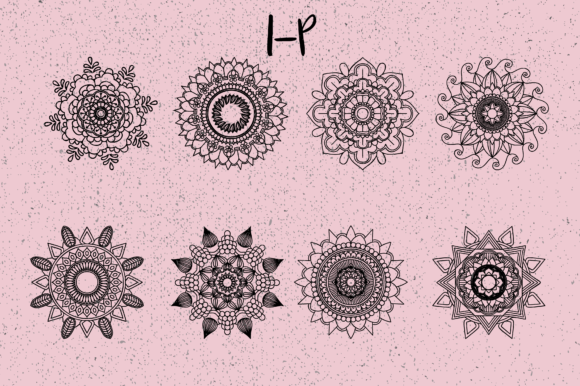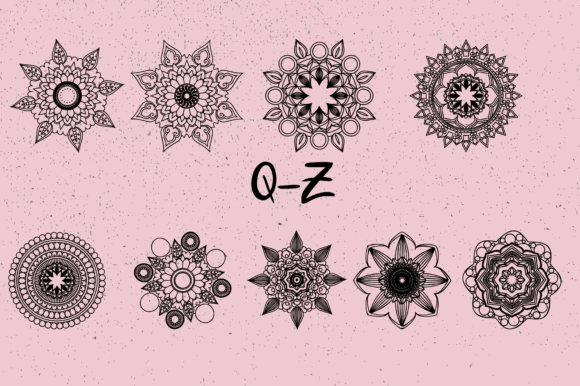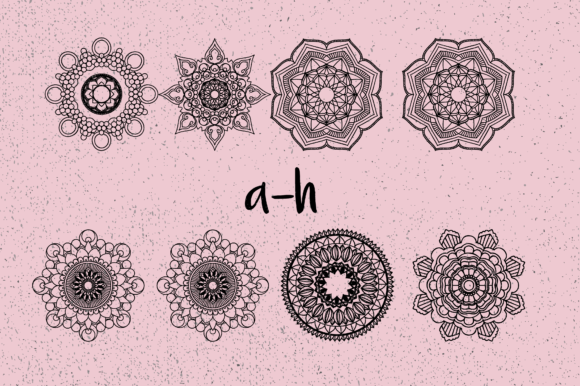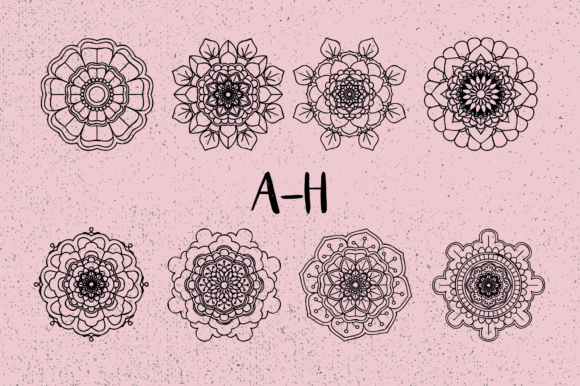
About Mandala Font
Mandala Creator is a remarkable dingbats typeface that allows you to effortlessly generate up to 62 unique floral mandalas for your creative projects. With this font, you can save a significant amount of time and technical knowledge typically required to create intricate mandala designs.
Mandalas are beautiful and symmetrical patterns that hold deep spiritual and cultural significance. They have been used for centuries as tools for meditation, relaxation, and self-expression. With Mandala Creator, you can easily incorporate these captivating designs into your own creations.
Using the font is simple and intuitive. Just type the corresponding letters or numbers to generate different floral mandalas. Each design is carefully crafted to showcase intricate patterns and floral elements, allowing you to add a touch of elegance and mystique to your artwork.
The versatility of Mandala Creator makes it suitable for various creative projects. Whether you’re designing invitations, greeting cards, posters, or digital illustrations, these unique floral mandalas will instantly enhance your compositions. You can also use them as decorative elements in branding, packaging, or website designs to create a visually captivating and harmonious aesthetic.
One of the advantages of using Mandala Creator is the ability to customize the size and color of the mandalas. You can easily scale them up or down to fit your desired dimensions, and you have the freedom to choose the color palette that best suits your project. This flexibility allows you to create personalized and visually striking designs that align with your creative vision.
In conclusion, Mandala Creator is a valuable dingbats typeface that simplifies the process of generating unique floral mandalas. By utilizing this font, you can effortlessly incorporate intricate and captivating designs into your creative projects, saving time and technical expertise. Explore the possibilities of Mandala Creator and elevate your artwork with its beautiful and symbolic floral mandalas.